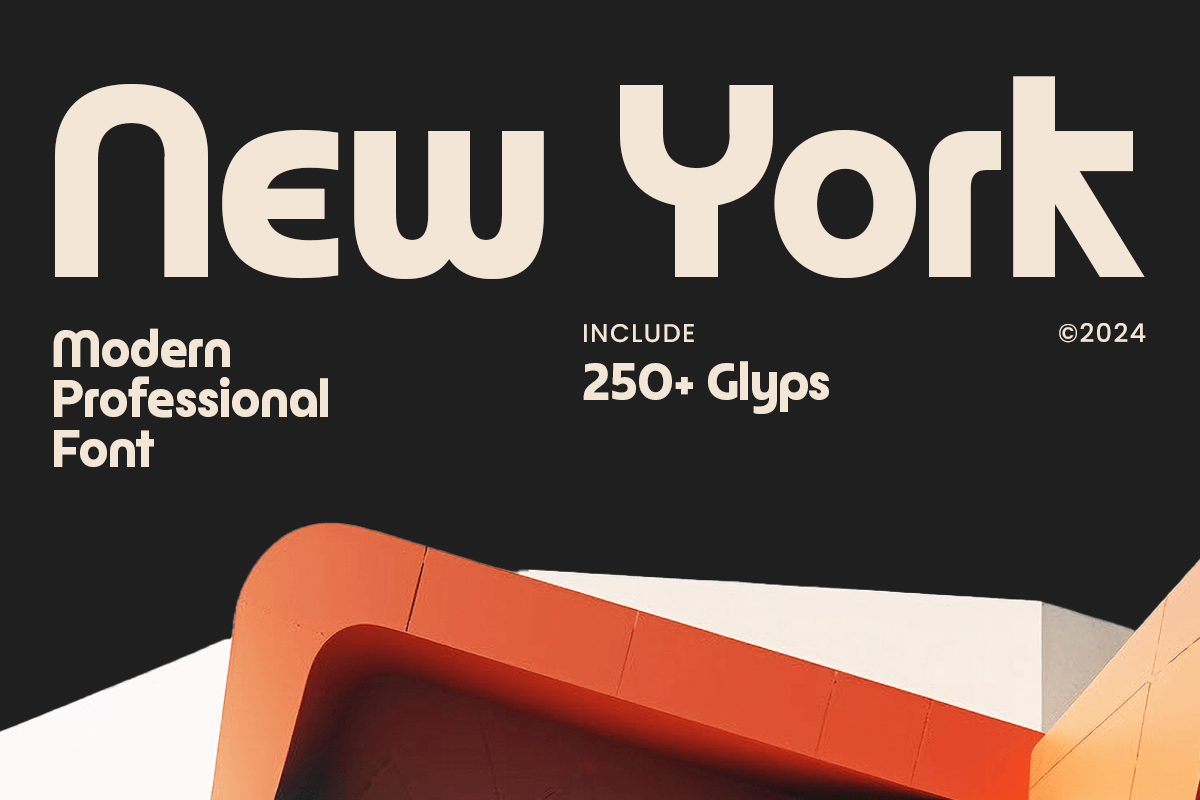
New York
-Modern Professional Font
New York is a modern professional font designed for sophisticated branding and high-end design projects. Its clean and elegant letterforms provide a contemporary yet timeless feel, making it perfect for logos, corporate materials, and professional presentations. This font embodies the essence of modern minimalism while maintaining a sense of luxury and refinement.
Inspired by the vibrant energy of the city it's named after, New York offers versatility and adaptability for various design applications. Whether you are crafting a corporate identity, designing sleek business cards, or working on editorial content, this font ensures your work exudes professionalism and style.
Ideal for branding, business logos, websites, and more, New York’s refined design effortlessly elevates your project, helping you communicate a polished and modern aesthetic that leaves a lasting impression.